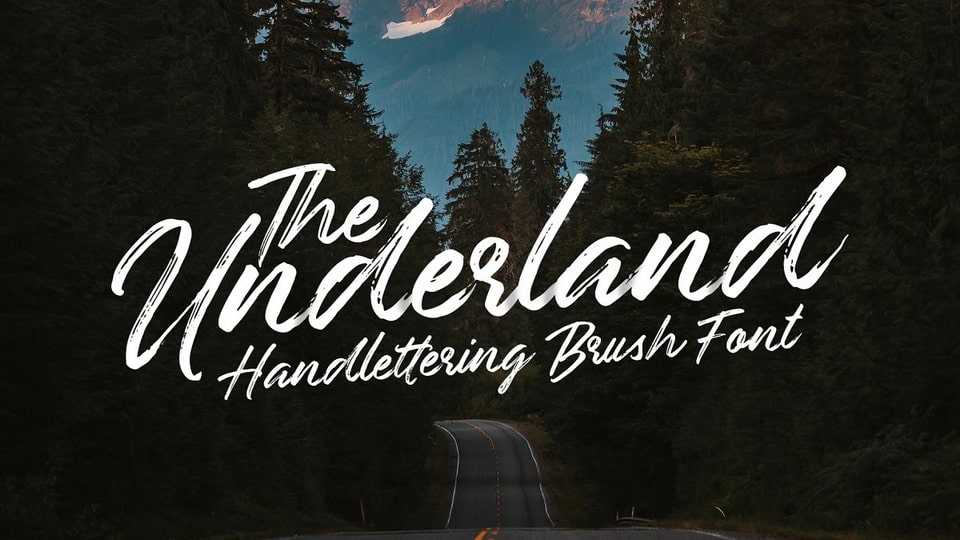
Download Underland font, a rough brush script typeface with a clear style and dramatic movement this font is great for your next creative project such as logos, printed quotes, invitations, cards, product packaging, headers, logotype, letterhead, poster, apparel design, label, and etc.